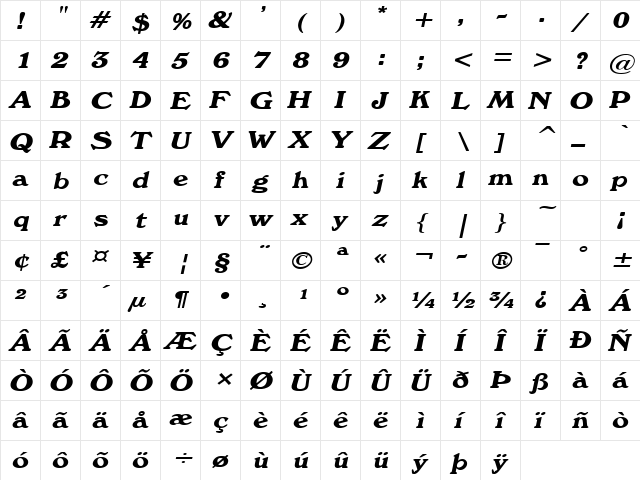
Windz Wide Italic
Design Context for Windz Wide Typeface
Windz Wide takes a measured approach to typography — its balanced proportions and neutral character make it a reliable workhorse for both digital and print work. Its italic angle brings a sense of urgency and motion to the letterforms.
Pro Tip: Try Windz Wide for annotation and caption copy alongside an upright companion — the contrast in angle creates a dynamic but ordered typographic system.